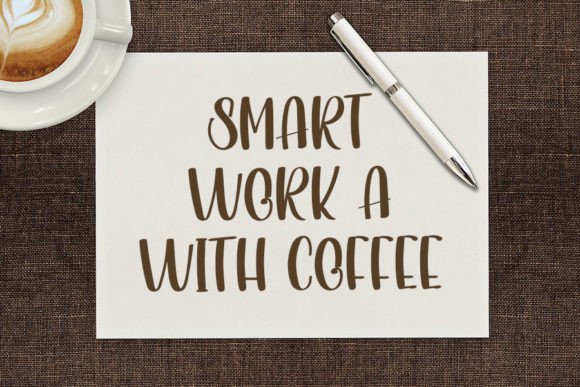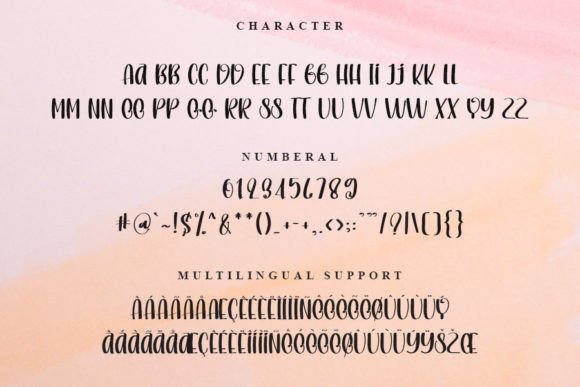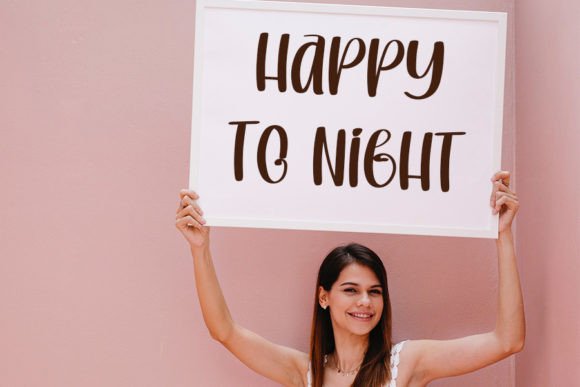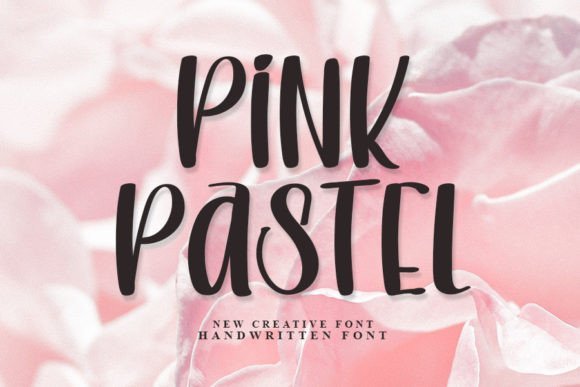
Introduction to Pink Pastel Font
Pink Pastel is a fun and friendly handwritten font.
Fall in love with its incredibly versatile style and use it to create gorgeous wedding invitations, beautiful stationary art, eye-catching social media posts, and much more .
Key Features of Pink Pastel Font
Why Choose Pink Pastel Font?
Pink Pastel Font offers exceptional quality and versatility, making it a valuable addition to your design toolkit. Whether you’re creating for personal projects or commercial use, Pink Pastel Font delivers professional results.